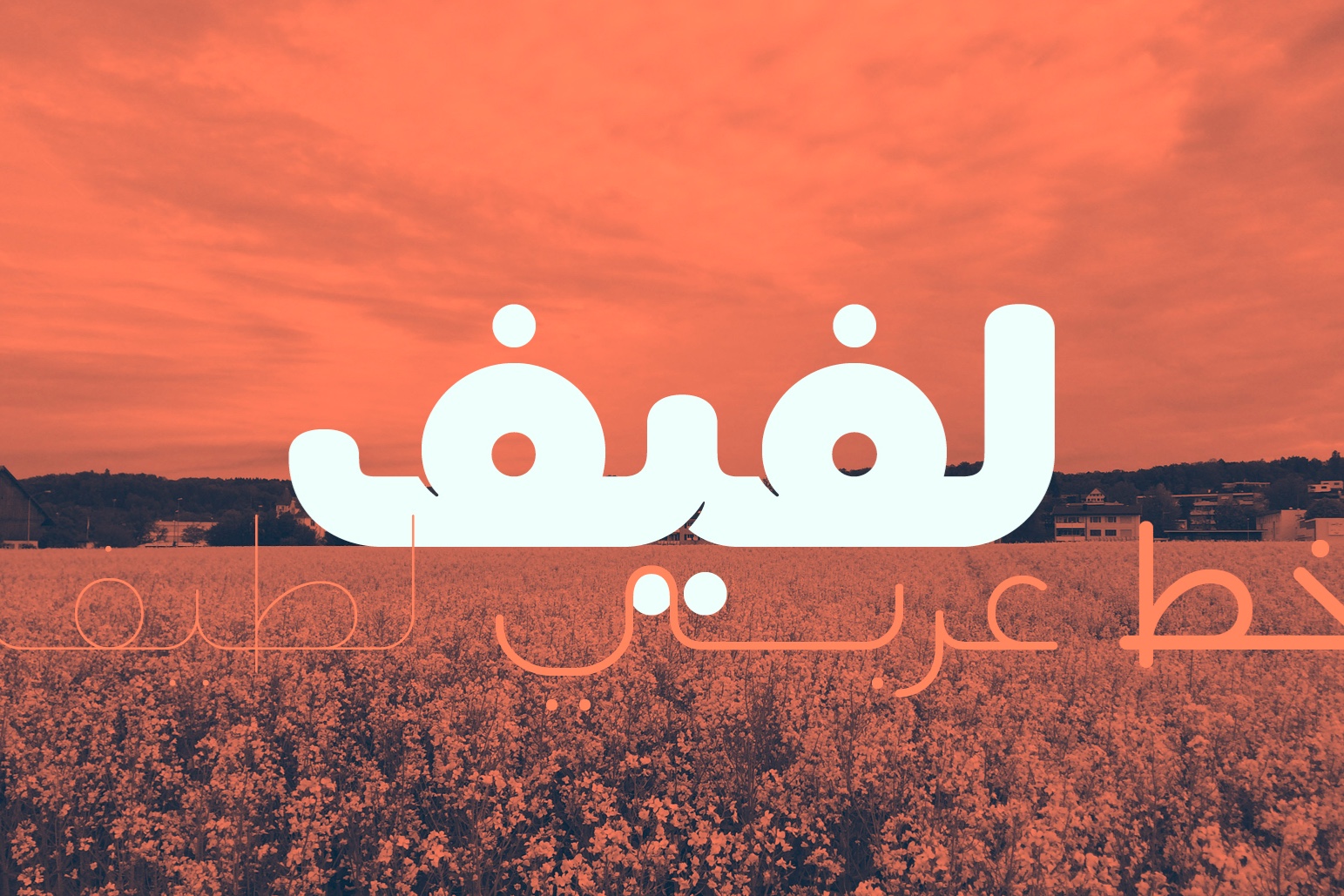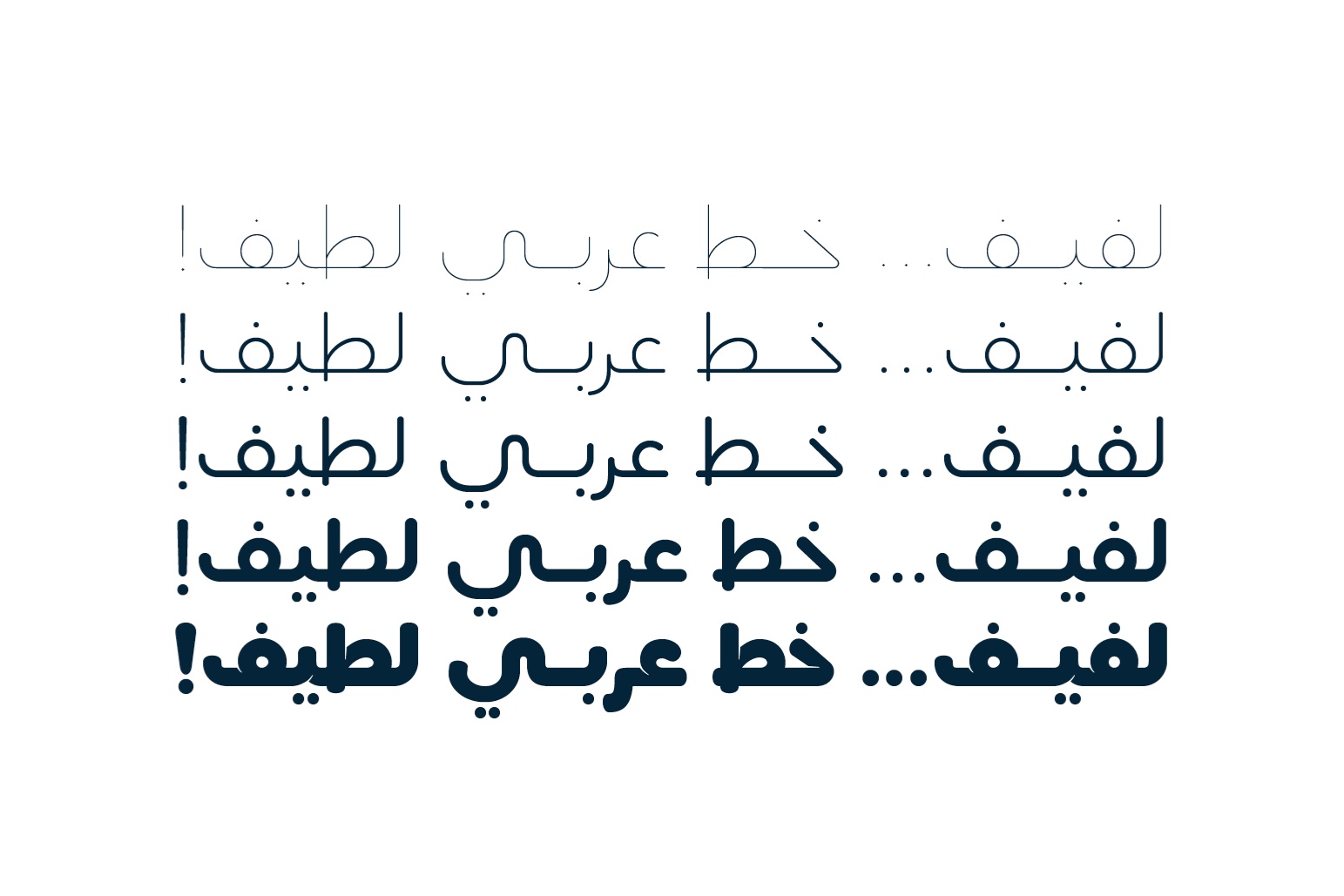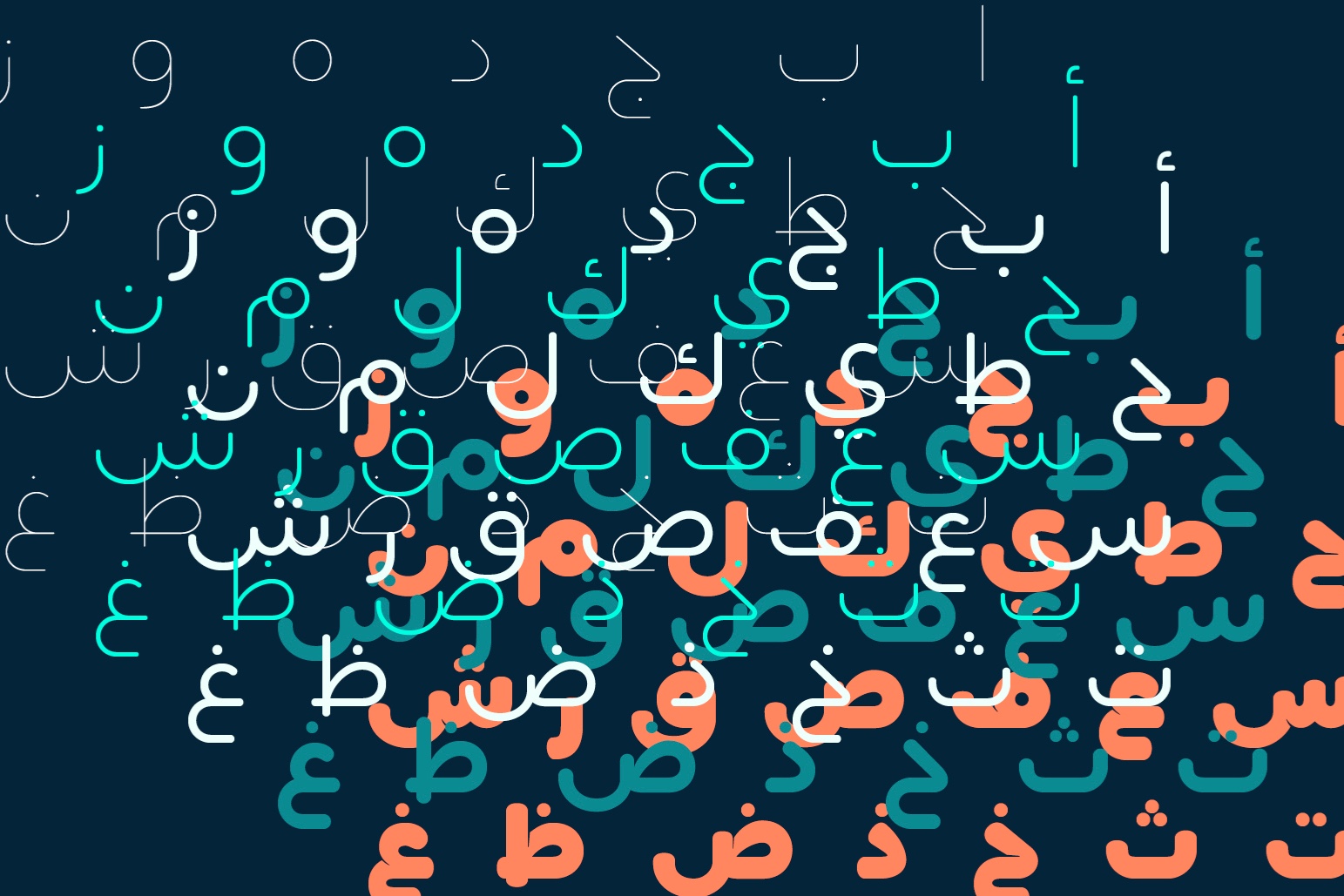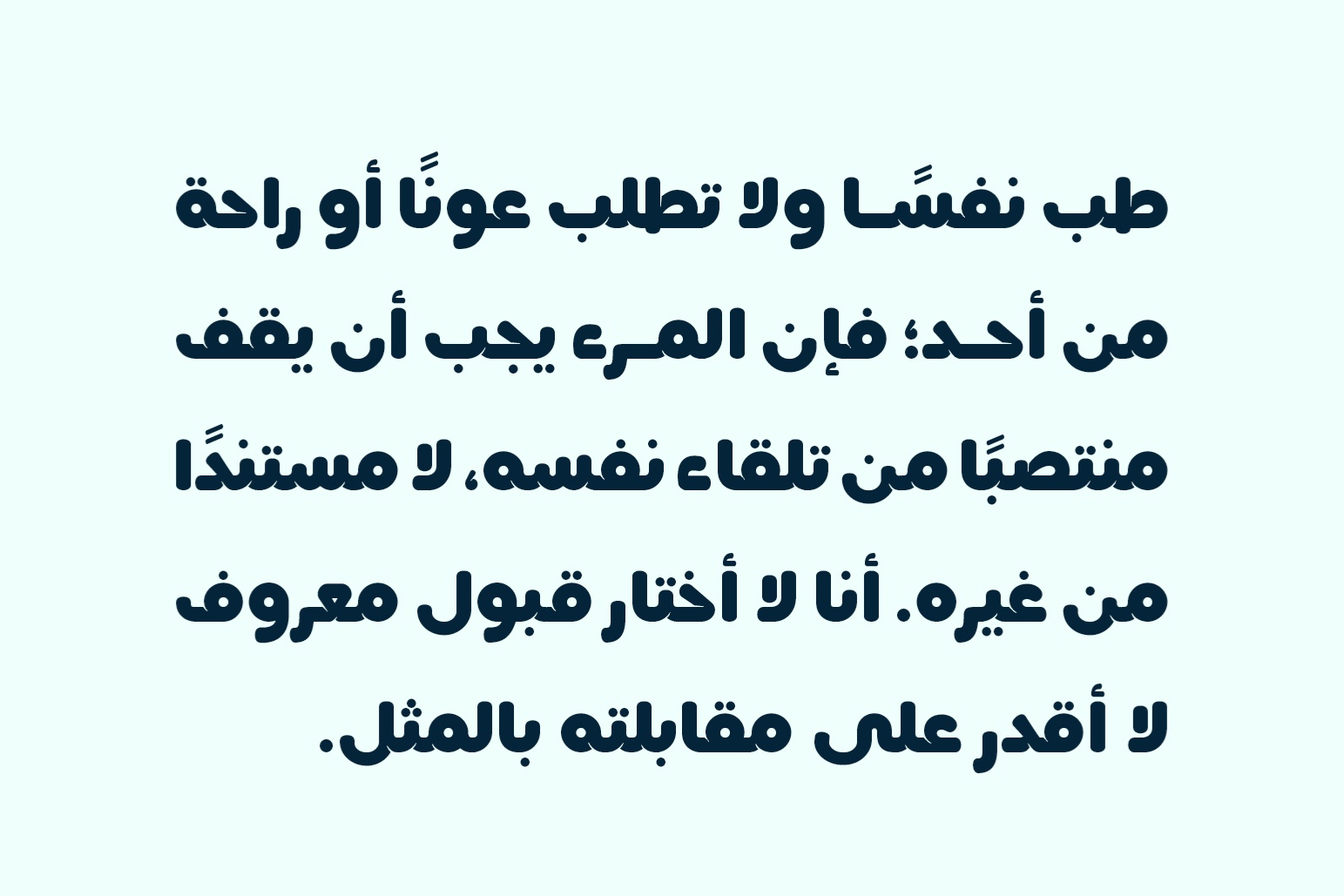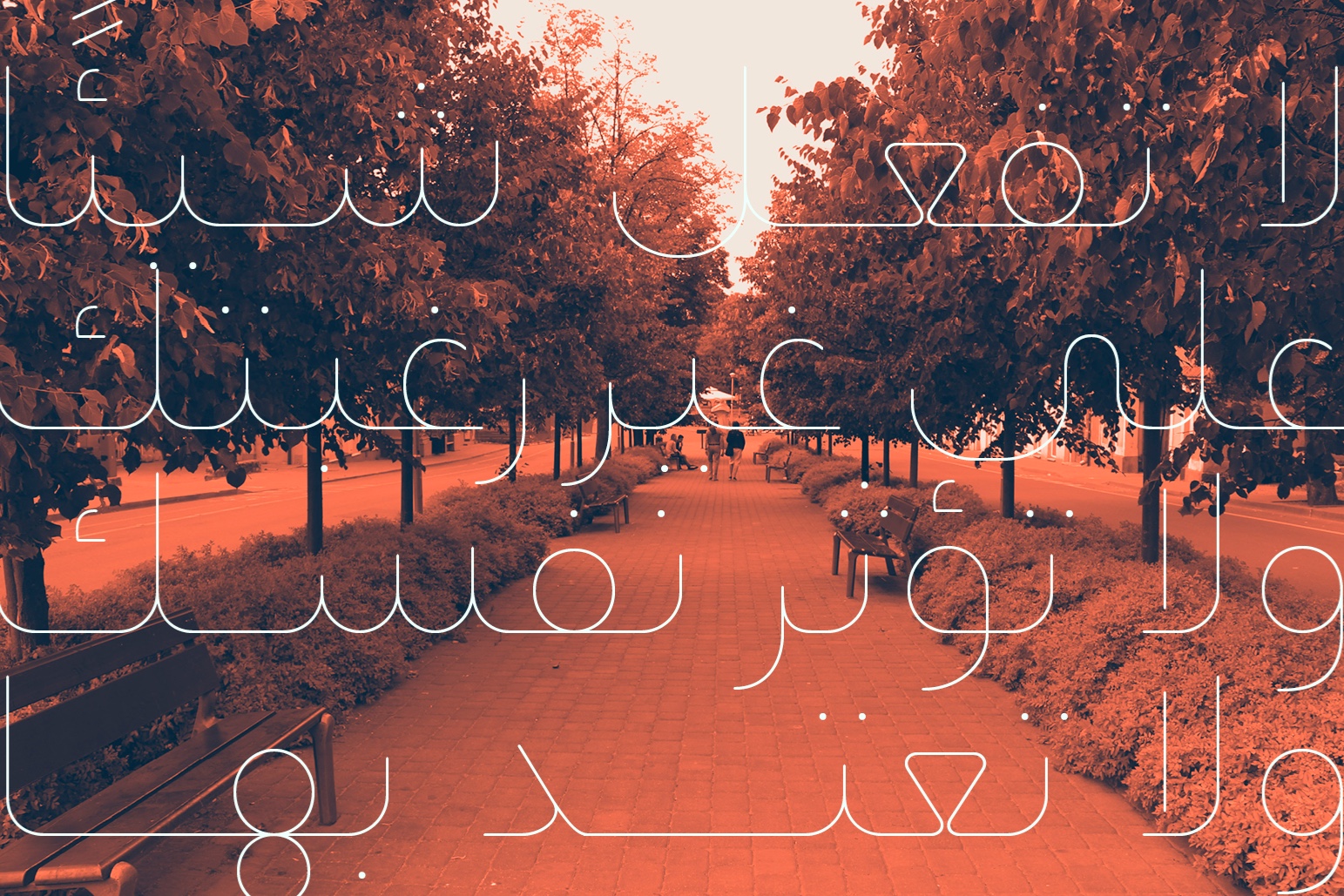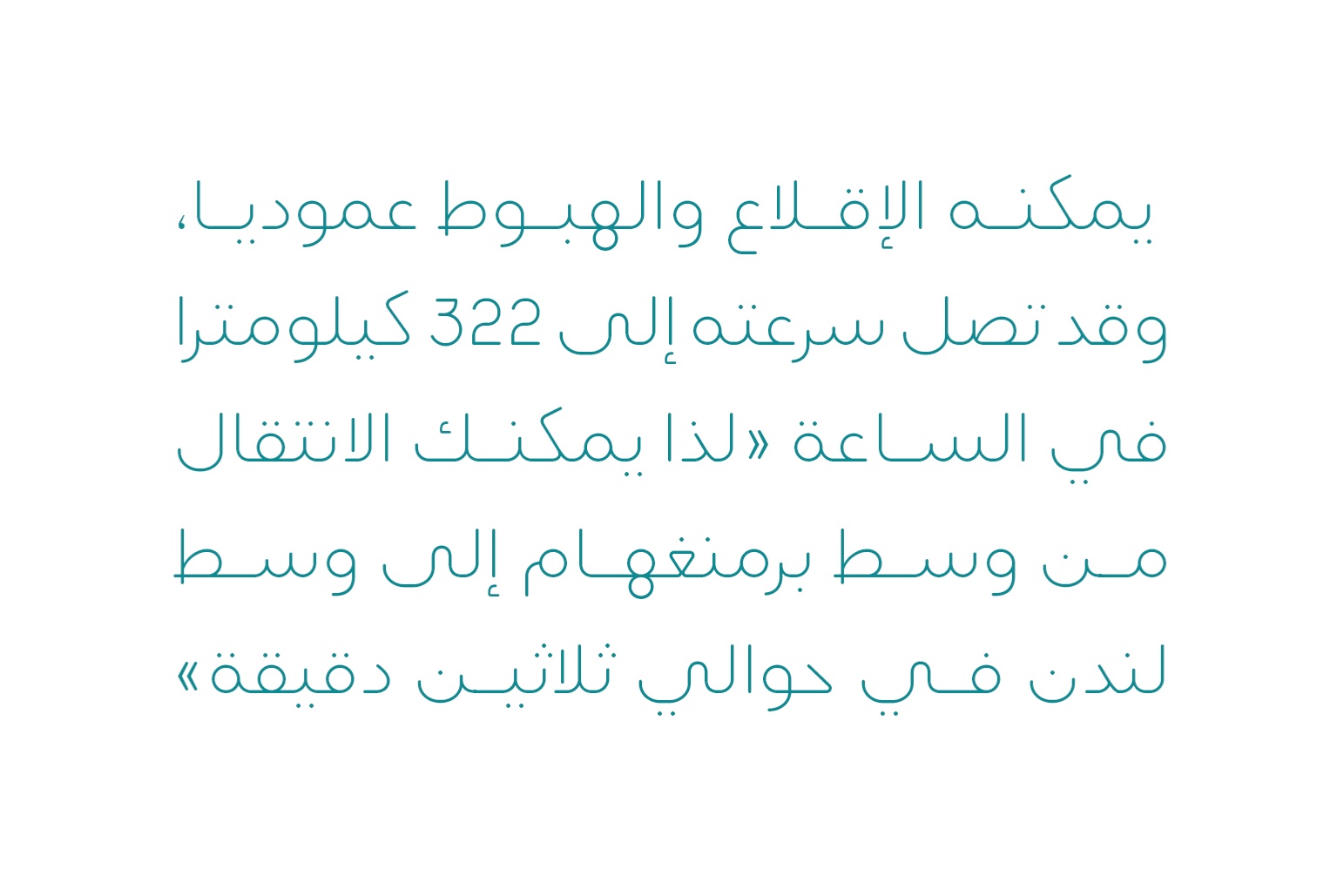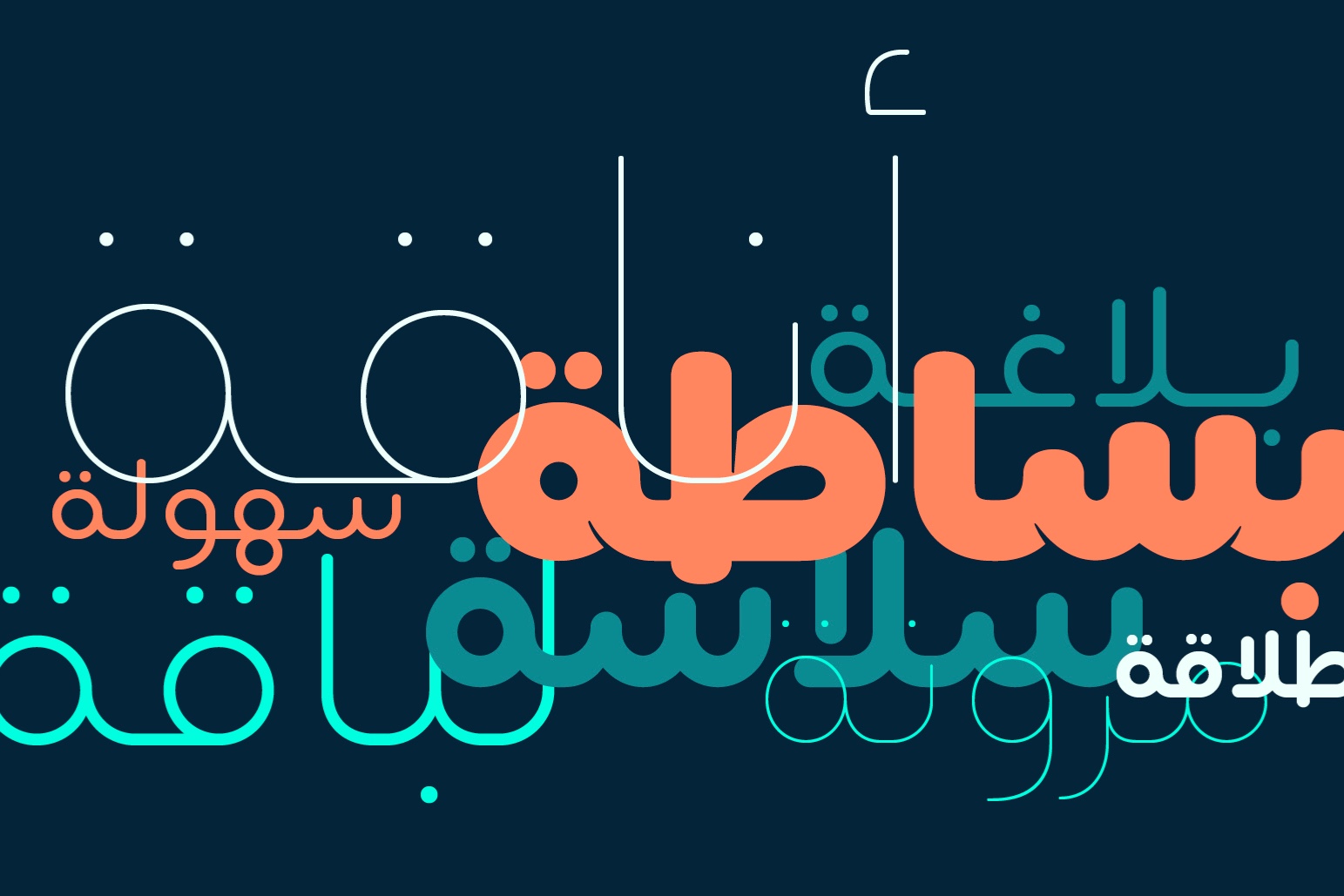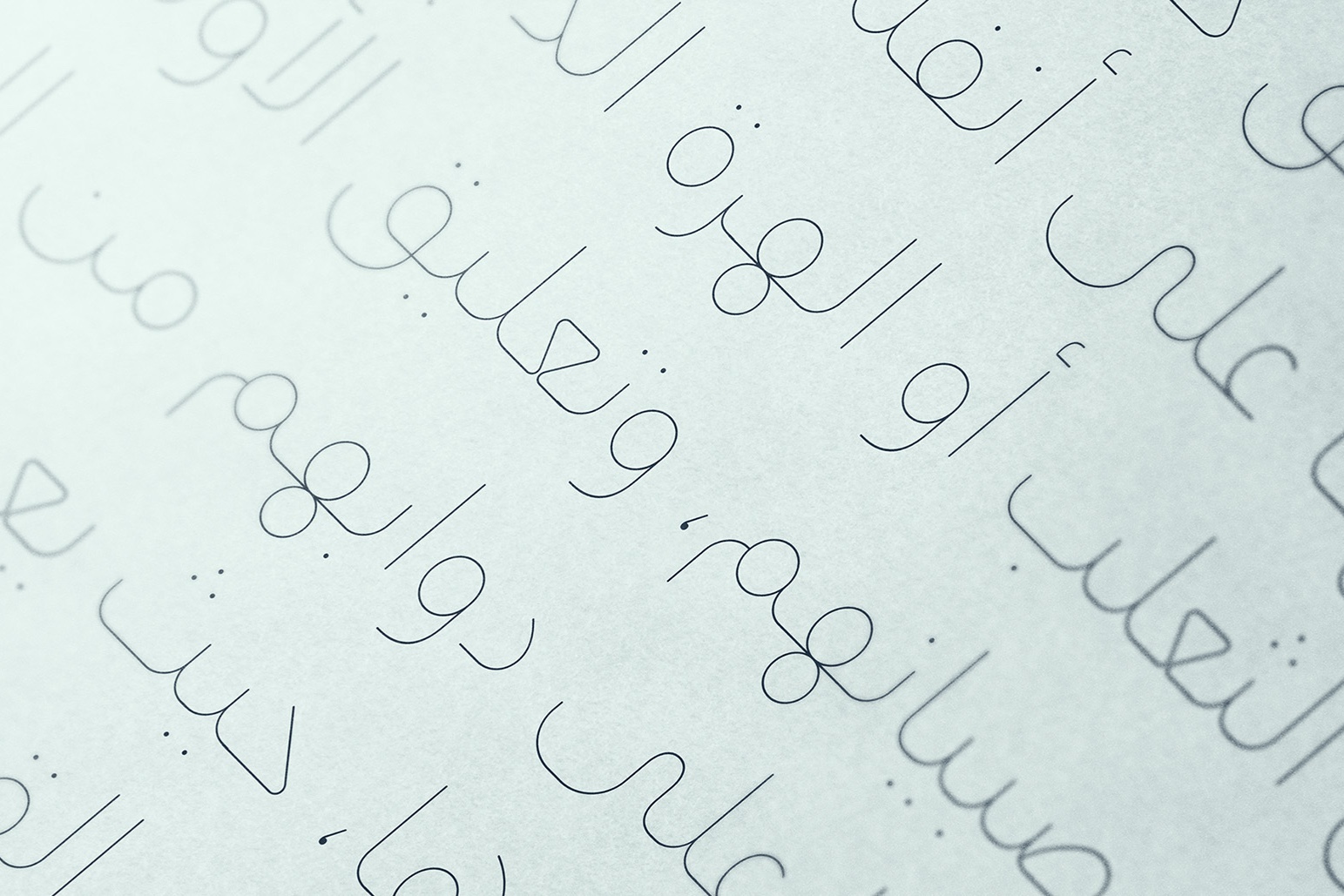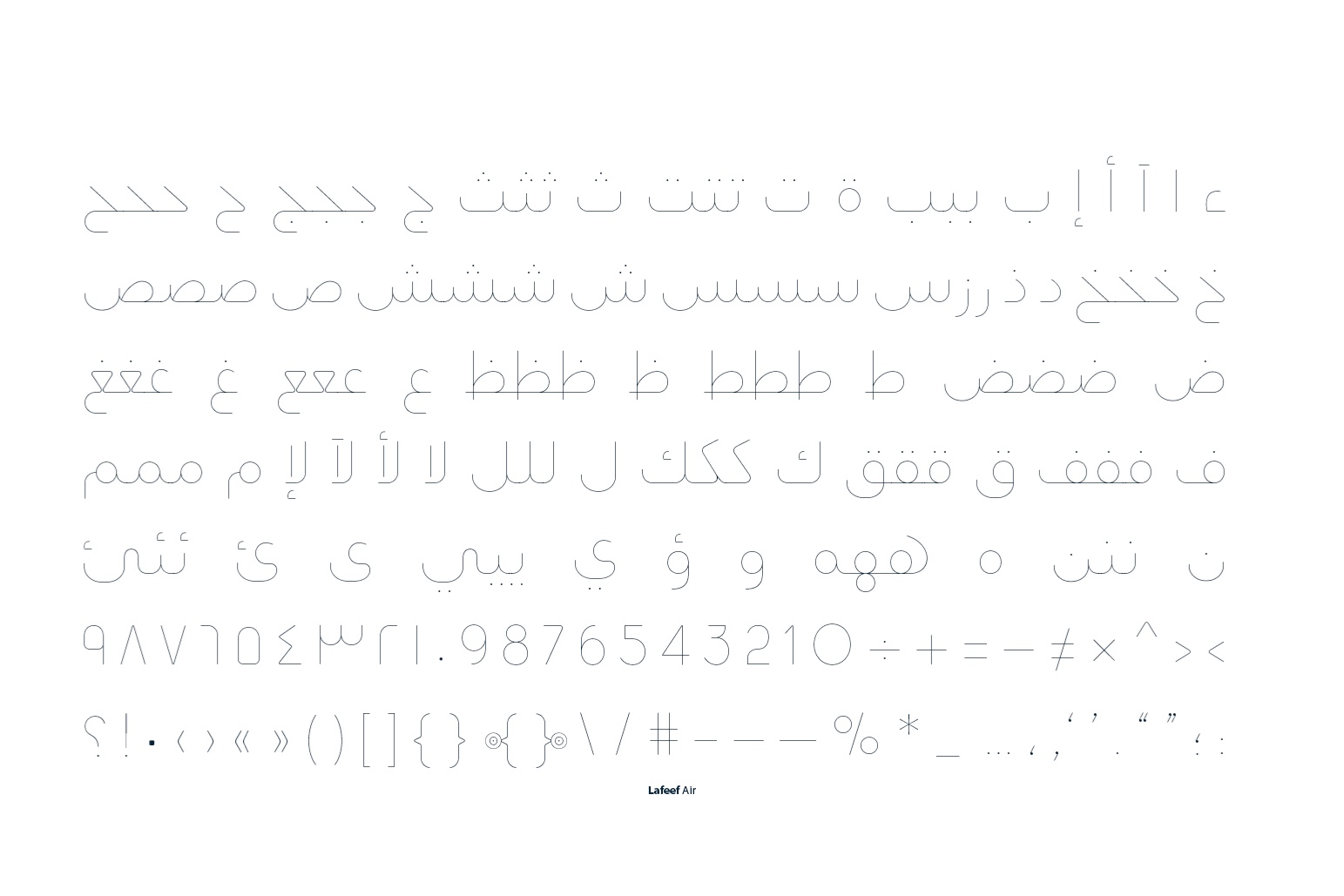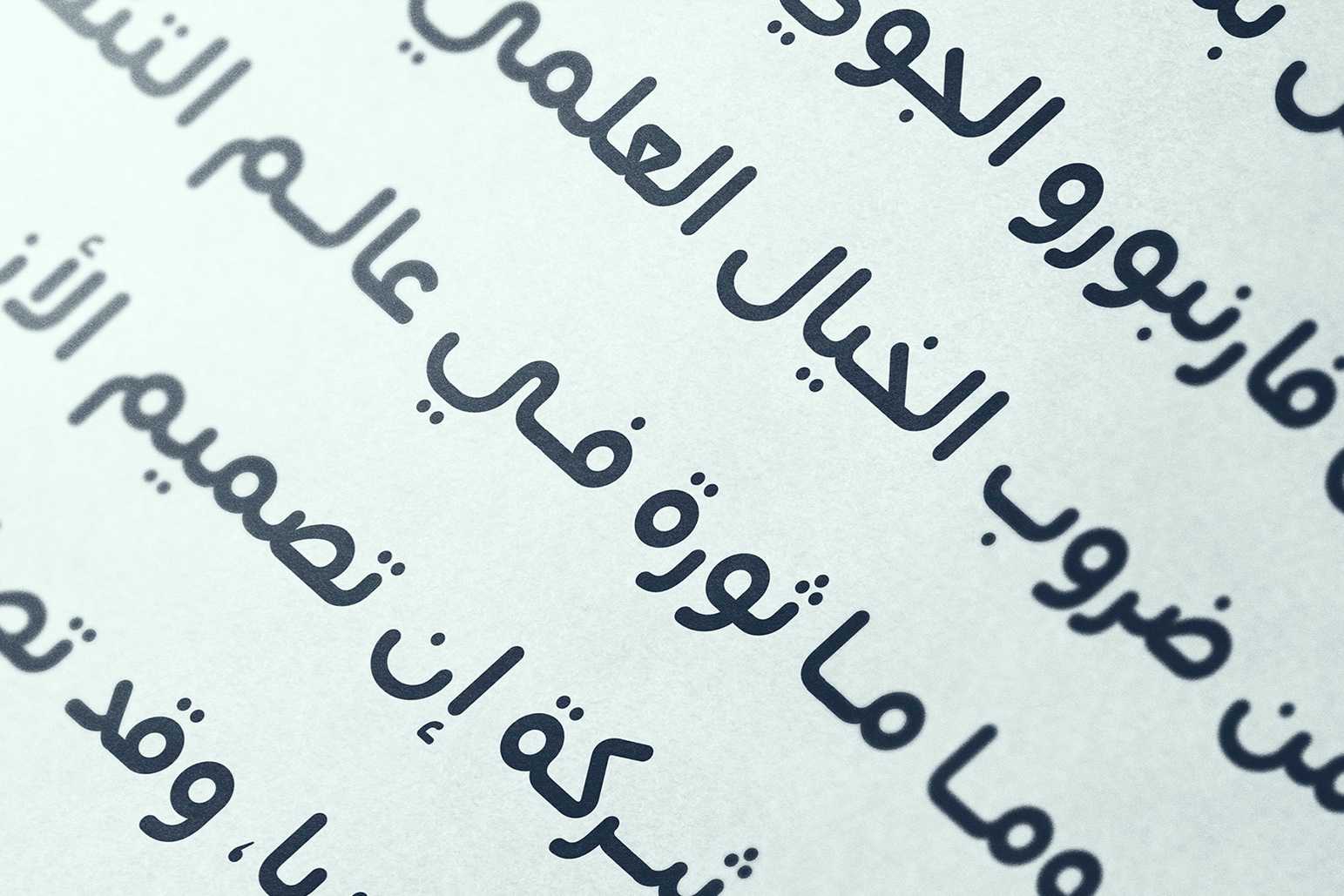
Lafeef is an Arabic font family that features rounded letterforms with destressed terminals. It suits advertising, branding, web design and mobile applications. Lafeef typeface includes five weights (Air, Light, Regular, Bold and Fat)
Air, Light, Regular, Bold and Fat